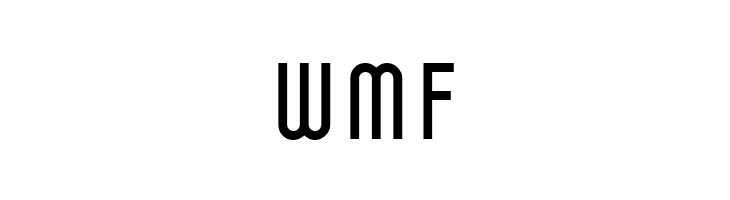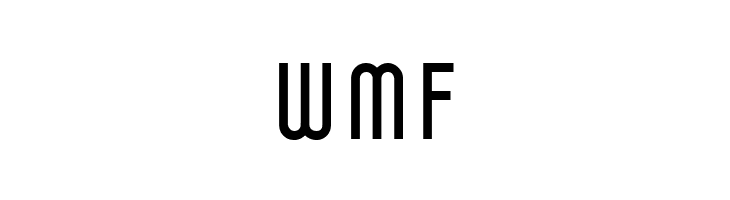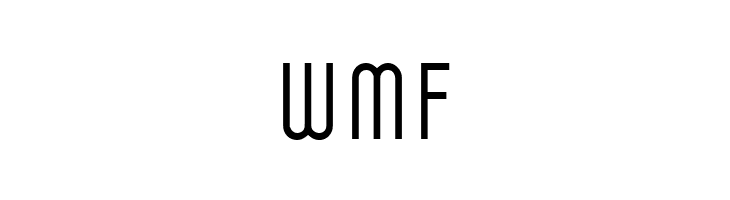
Prozak Bold Font
A bold, modern font with tall, slightly condensed characters and a sleek appearance.
Prozak Font
A bold, modern, and condensed font with a geometric structure.
Prozak Light Font
A modern, narrow sans-serif font with consistent stroke width and clean lines.
[z] Prozak Bold Font
A bold, modern font with a sleek and slightly condensed design.
[z] Prozak Font
A modern, geometric sans-serif font with a sleek, condensed design.
Proza Libre Bold Font
A bold, modern sans-serif font with strong, uniform strokes and high legibility.
Proza Libre Light Font
A modern, light sans-serif font with excellent readability and balanced proportions.
[z] Prozak Light Font
A modern, geometric font with tall, narrow characters and clean lines.
Proza Libre SemiBold Font
A modern, semi-bold sans-serif font with a clean and versatile design.
Proza Libre ExtraBold Font
A bold, modern typeface with clean lines and strong visual impact.
Proza Libre ExtraBold Italic Font
A bold, italic typeface with a modern and dynamic style.
Proza Libre Regular Font
A modern, clean sans-serif font with excellent readability and versatility.
Proza Libre Bold Italic Font
A modern, bold, italic font with a clean and dynamic style.
Proza Libre Font
A modern, clean sans-serif font with excellent readability and balanced proportions.
Proza Libre Medium Font
A modern, clean typeface with consistent stroke width and excellent readability.
Proza Libre SemiBold Italic Font
A modern sans-serif font with semi-bold weight and italic style, offering a dynamic and elegant look.
Prozac Buzz Font
An ornate, steampunk-inspired design with gears and wings, more decorative than functional.
Prozac Child Font
A futuristic and edgy font with sharp angles and geometric shapes.
Proza Libre Medium Italic Font
A modern, italic typeface with clean lines and balanced proportions.